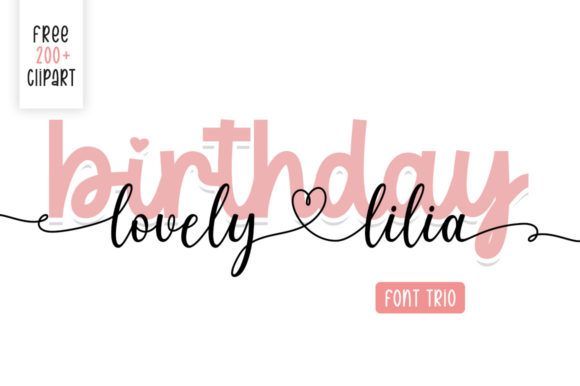
The Birth of a Beautiful Font: A Designer’s Love Affair with Birthday Lovely Lilia
I’ll never forget the moment I stumbled upon the perfect font for a client’s birthday project. I was scrolling through my font library, feeling like a kid in a candy store, searching for that one special something that would make the design pop. And then, I saw her – Birthday Lovely Lilia, a cute and playful duo font that stole my heart. In this article, I’ll share my journey with this beautiful font, its features, and how you can make the most of it in your designs.
First Impressions: An Honest Review
So, what makes Birthday Lovely Lilia so special? Let’s dive into the good stuff! 😊
• ✨ Versatility: This font is incredibly versatile, making it perfect for a wide range of designs, from birthday cards to branding and packaging.
• ✅ Easy to use: PUA encoded, which means you can access all the glyphs and swashes with ease, no matter the platform you’re using.
• 💕 Aesthetic appeal: The duo font combination (display and script) is both cute and playful, adding a touch of whimsy to any design.
• 🤔 Glyph compatibility: Some glyphs might not work seamlessly across all platforms, so be sure to test them before finalizing your design.
• ⚠️ Overuse: As with any script font, be mindful of overusing Birthday Lovely Lilia, as it can quickly become overwhelming.
The Story Behind Birthday Lovely Lilia
Legend has it that the designer behind Birthday Lovely Lilia was inspired by the charm of handwritten fonts and the playfulness of childhood birthday parties. With a passion for creating unique and versatile fonts, they crafted Birthday Lovely Lilia to bring joy and whimsy to designers and crafters alike.
A: PUA (Private Use Area) encoding allows font creators to include additional glyphs and characters that aren’t part of the standard Unicode range. This means you can access a wider range of swashes, glyphs, and alternates, making it easier to customize your designs.
Q: Is Birthday Lovely Lilia suitable for body text?
A: While Birthday Lovely Lilia is a beautiful font, it’s primarily designed for display purposes. For body text, you may want to choose a clearer, more legible font to ensure readability.